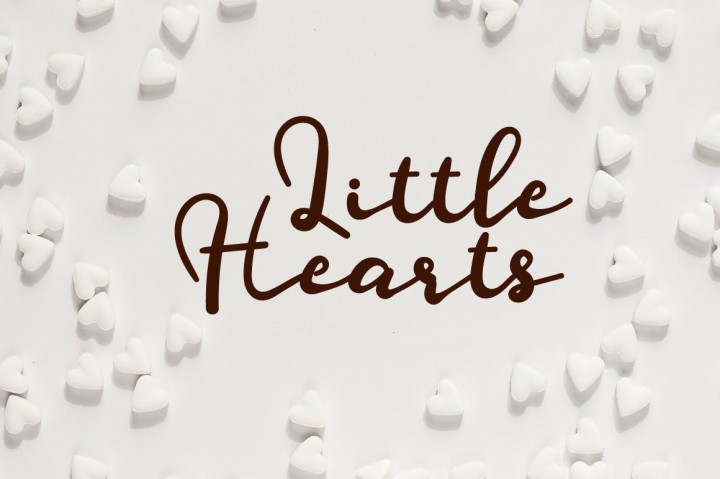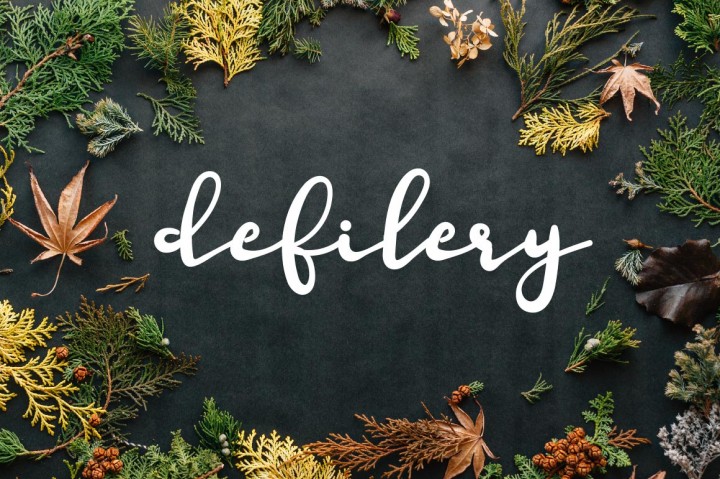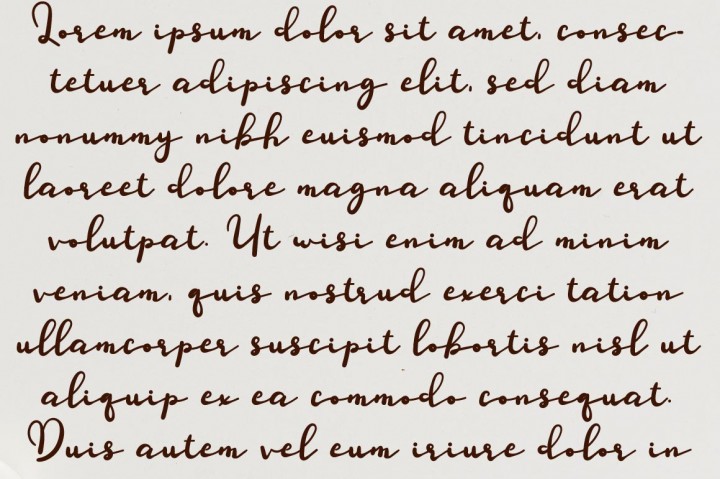
Tightones Font
Tightones – Elegant Signature Font, from Glorytype Studio, suitable for any projects such as: logos, branding projects, homeware designs, product packaging, mugs, quotes, posters, shopping bags, t-shirts, book covers, name card, invitation cards, greeting cards, label, photography, watermark, special events, and all your other lovely projects that need a beautiful script taste.